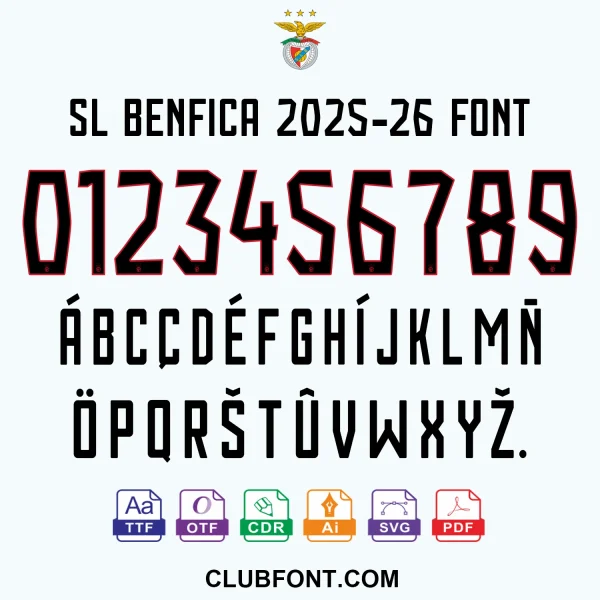
SL Benfica 2025-26 Away Font – Complete Digital Kit
Elevate your football design projects with the definitive SL Benfica 2025-26 Away Font. Meticulously crafted to mirror the official lettering on the club’s new beige away jersey, this digital asset pack provides the most accurate replication of the SL Benfica 2025-26 away Font typography available for designers and fans alike. Whether you are producing custom match-day graphics, printing heat-pressed names on replica shirts, or creating social media content, this font ensures professional-grade authenticity.
Optimized for Apparel Production
The SL Benfica 2025-26 away font isn’t just for digital screens; it’s engineered for physical production. The vector paths in the CDR and PDF files are designed with cutting and heat transfer in mind. The characters feature the correct stroke widths and spacing to match the authentic Benfica away jersey aesthetic. This ensures that when you cut HTV (Heat Transfer Vinyl) or create sublimation transfers, the final product looks exactly like what you see on the pitch at Estádio da Luz.